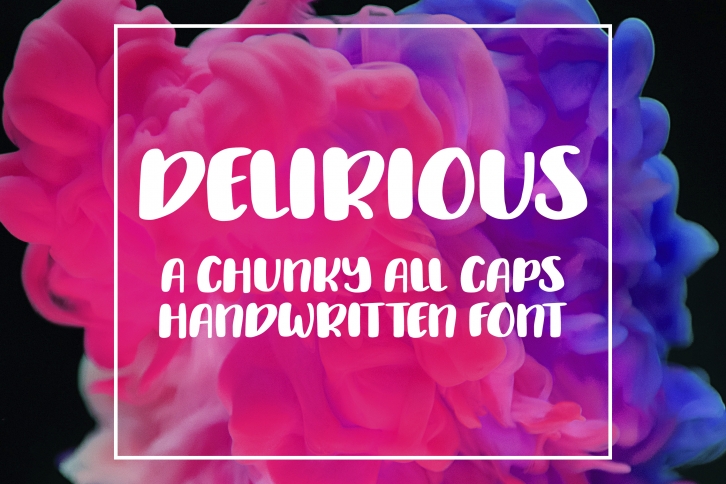
Delirious is a trendy and unique font with an authentic style. It was designed by SavoringSurprises and it's a great choice for creative people who need such a font. It was released on February 23, 2019 and the file size is 13.14 MB. Delirious will add an organic vibe to any design idea!